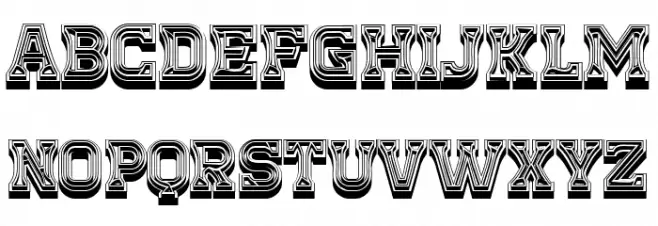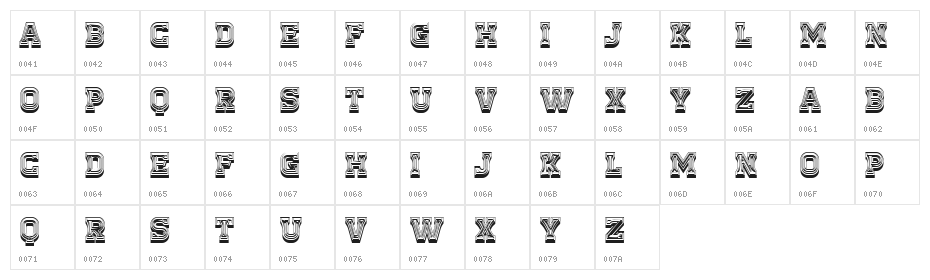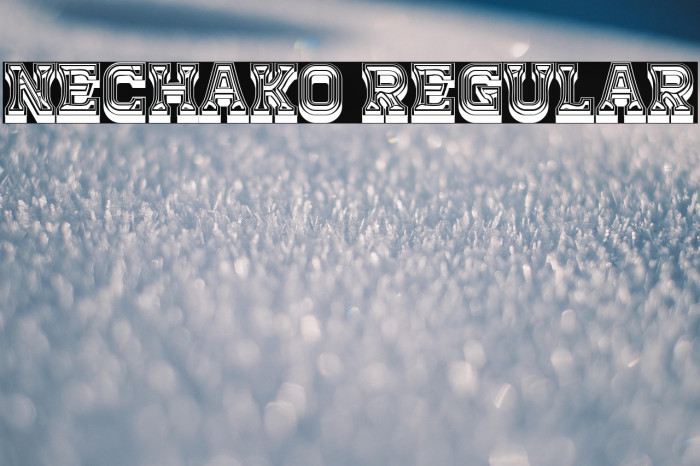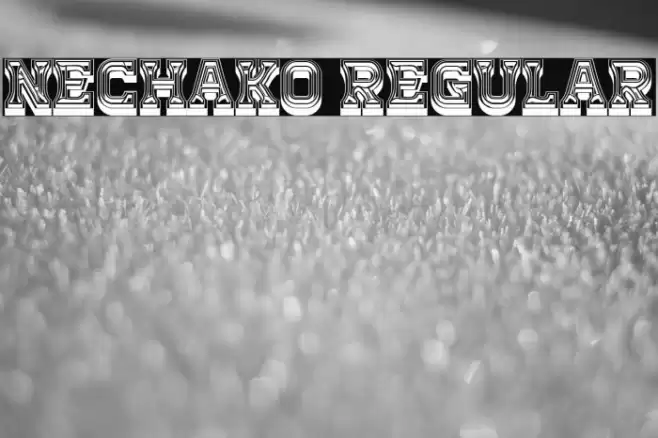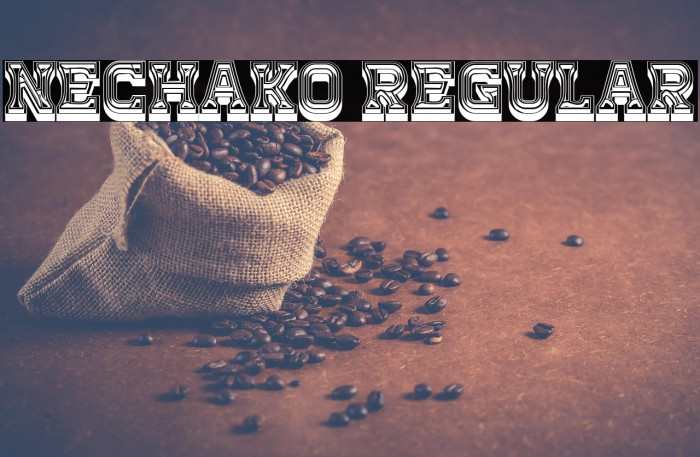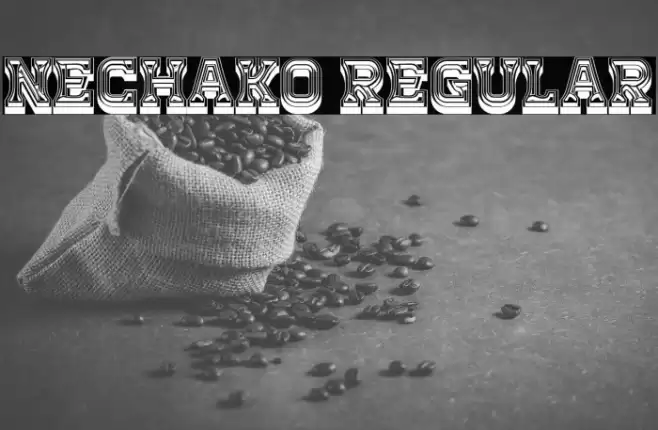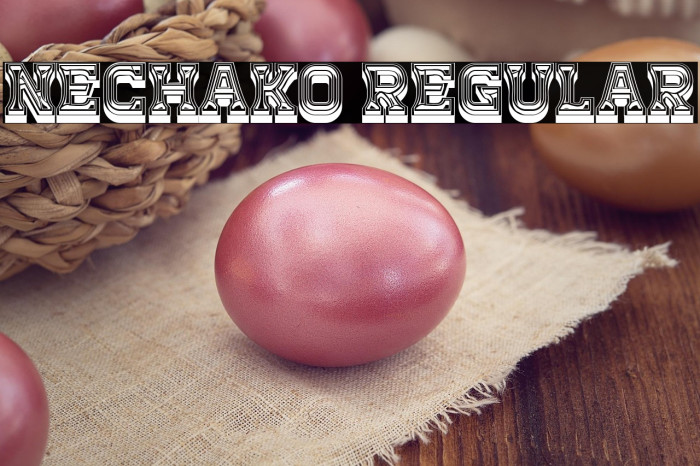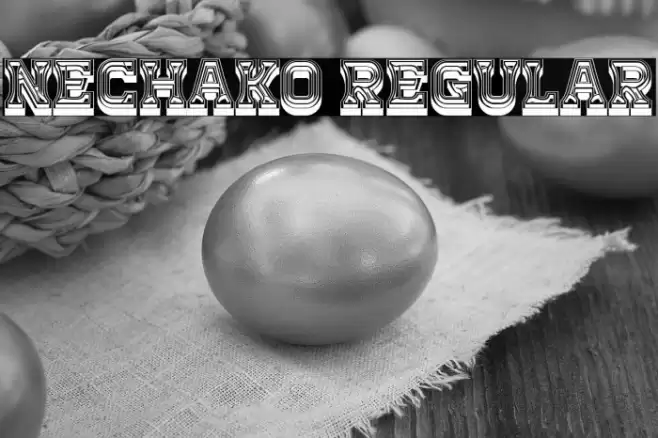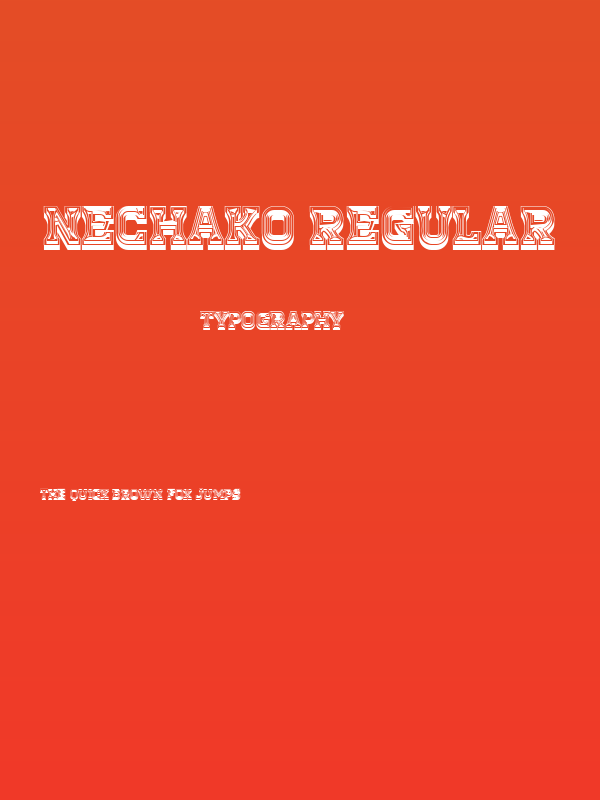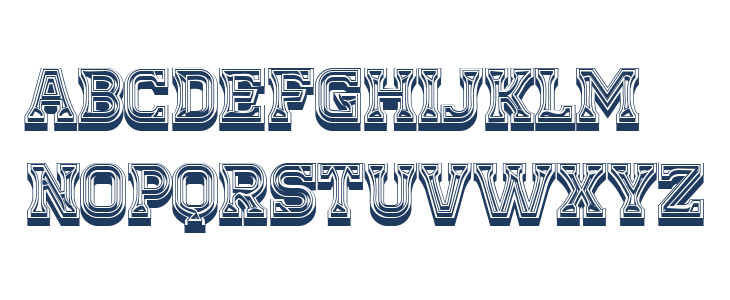
Nechako Regular Font
Nechako Regular Description
This font features a bold, decorative style with a strong 3D effect, achieved through layered outlines and shadows. The uppercase letters are designed with intricate detailing, giving them a sense of depth and dimension. The font's structure is robust, with thick strokes and sharp angles, creating a commanding presence. Its unique design makes it suitable for eye-catching displays and headings. The characters are evenly spaced, ensuring readability despite their complex design. The font's overall aesthetic is both modern and vintage, combining classic serif elements with contemporary flair.
| Overall Style | Modern, Vintage |
| Proposed Projects | Ideal for posters, logos, headlines, and any project requiring a striking, attention-grabbing font. |